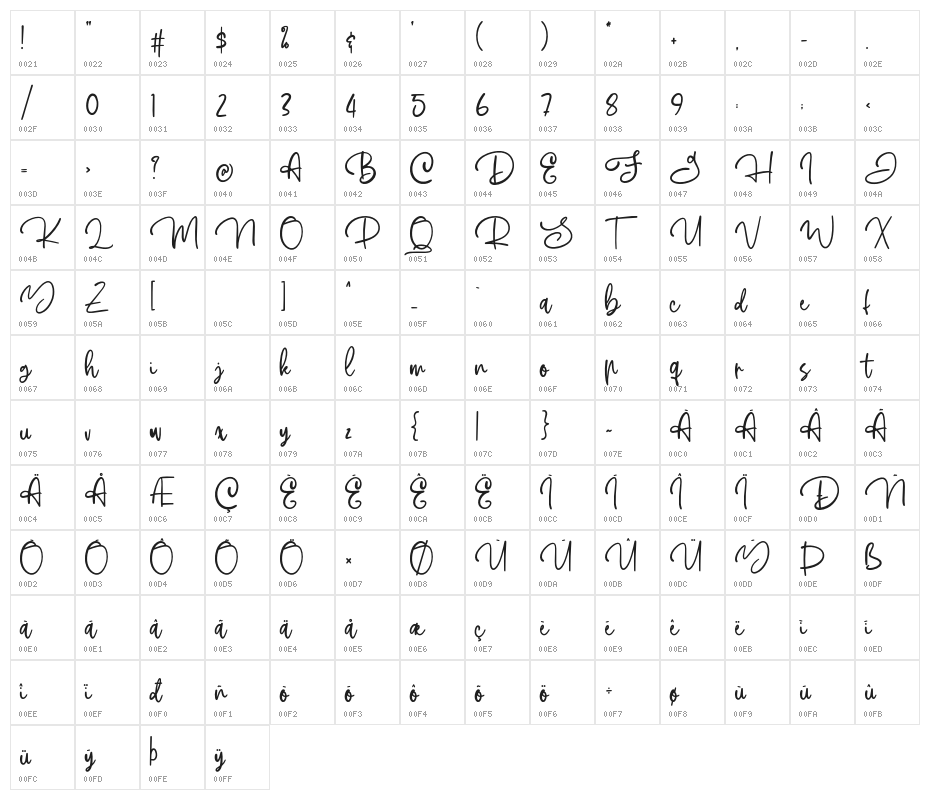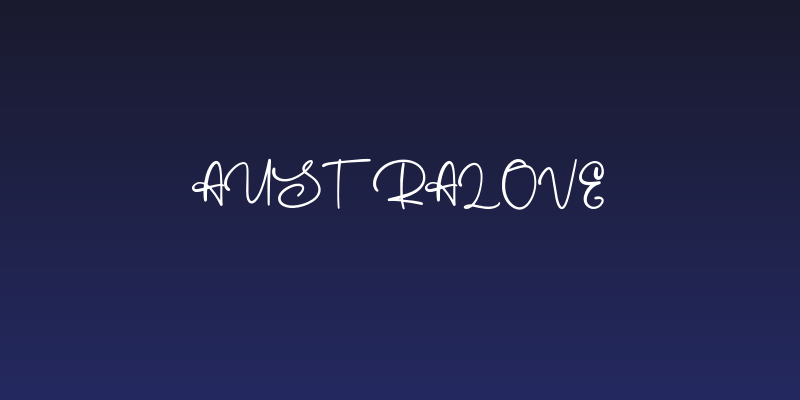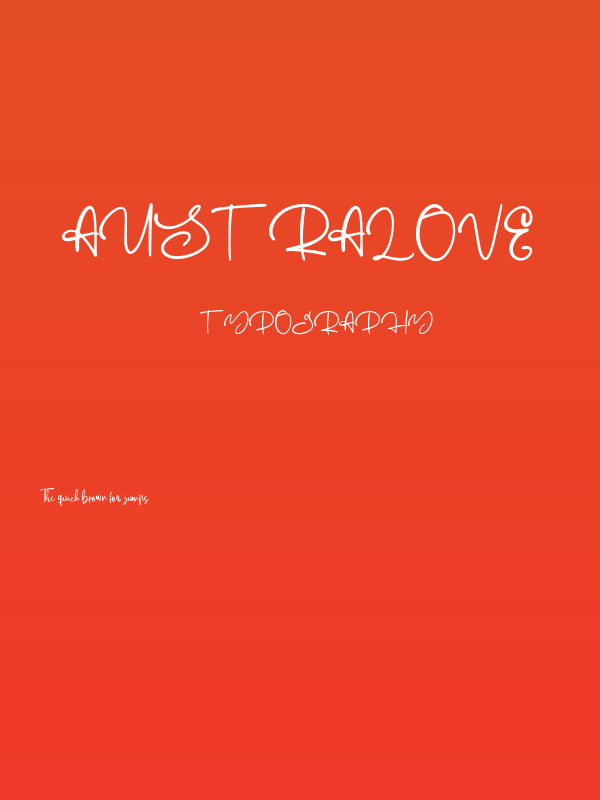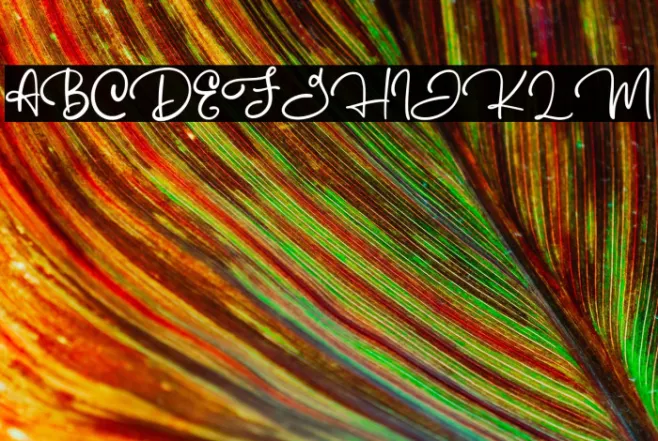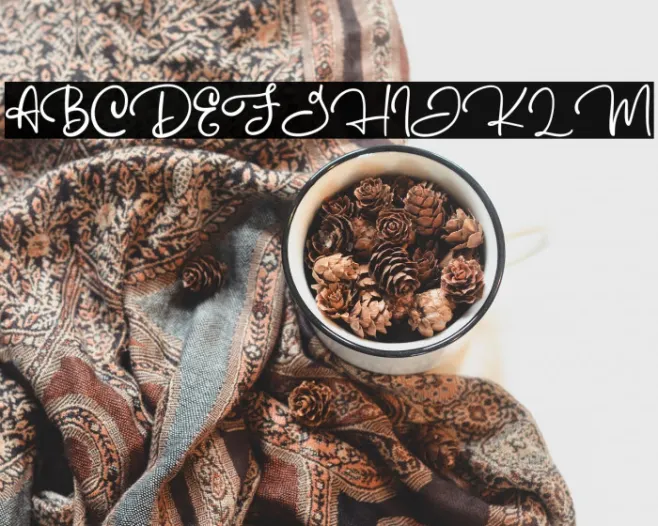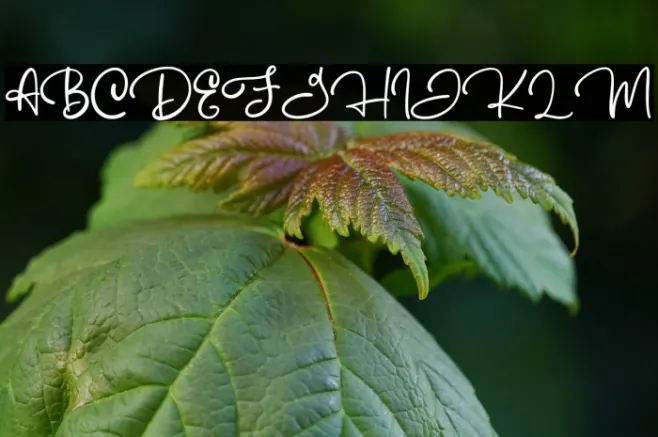
Australove Font
Australove Description
This font features a playful and elegant script style with a handwritten appearance. The uppercase letters are adorned with decorative swirls and loops, giving them a whimsical flair. The lowercase letters maintain a smooth and flowing form, enhancing readability while retaining a personal touch. Numbers and special characters are consistent with the overall style, ensuring a cohesive look across all text elements. The font's design is both expressive and versatile, making it suitable for a variety of creative projects.
| Proposed Projects | Ideal for wedding invitations, greeting cards, logos, and branding materials that require a personal and artistic touch. |